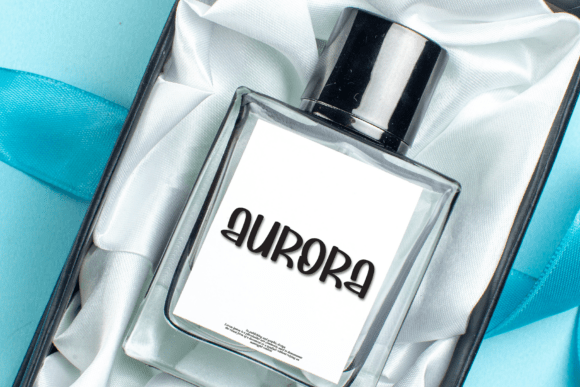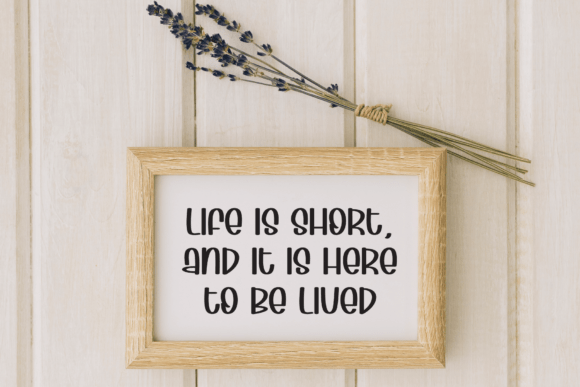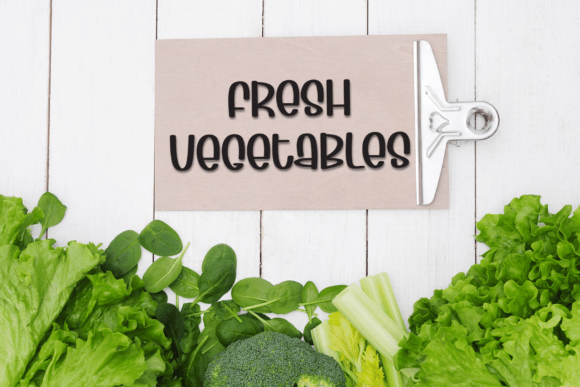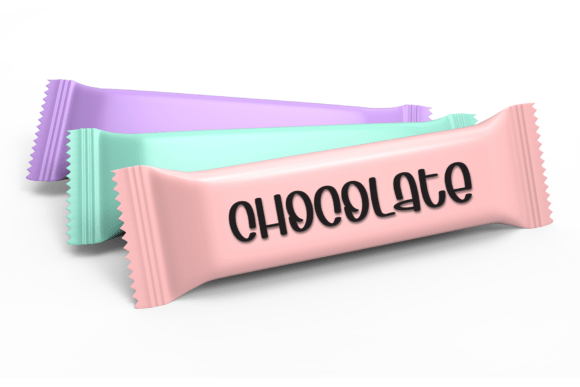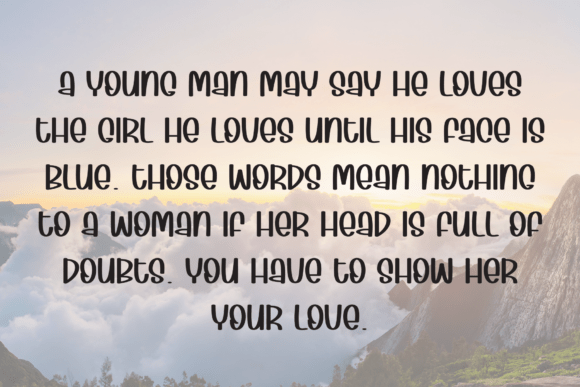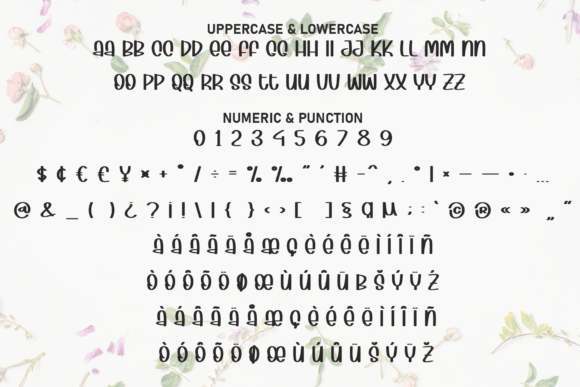
Introduction to Flower Forever Font
Flower Forever is a casual and neat display font designed to bring warmth and clarity to your projects.
With its clean structure and approachable style, it suits branding, headlines, and everyday designs The balanced letterforms offer readability and charm, making every message feel genuine and inviting.
Key Features of Flower Forever Font